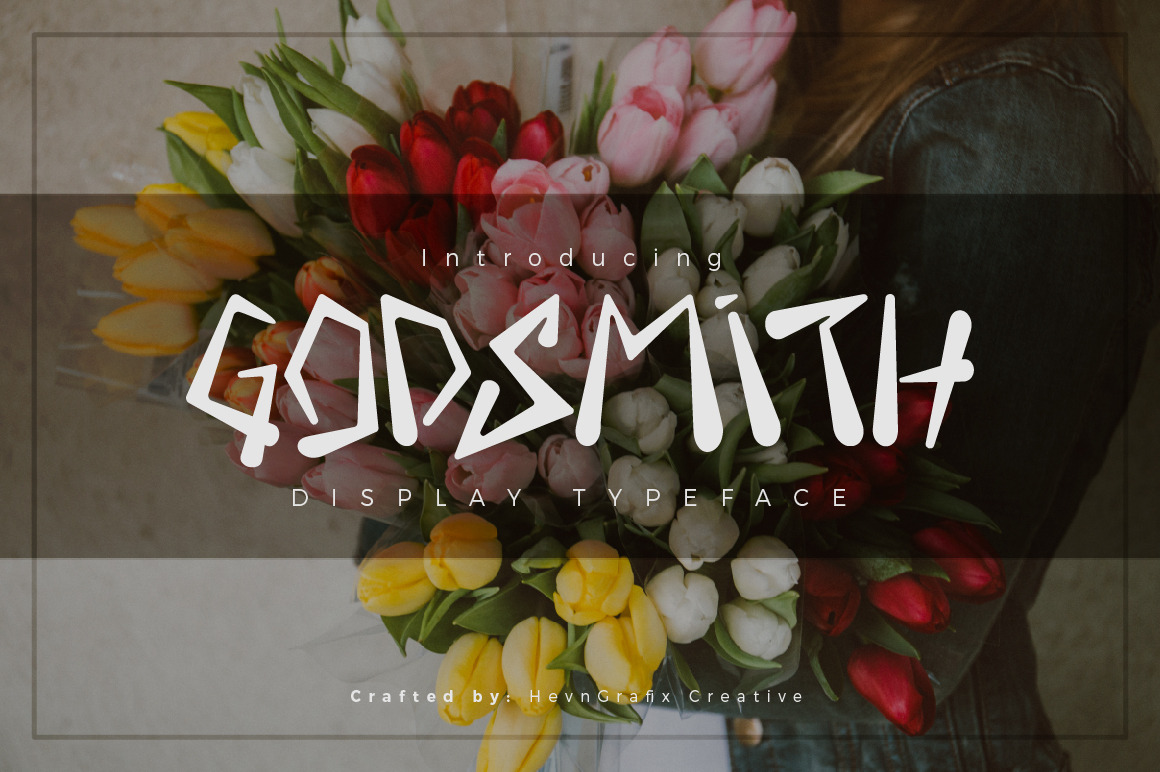
Godsmith Typeface
Introducing Godsmith Typeface, a display font with strong, rough and messy vibes. Use it for logos, cd cover, book cover title, movie poster, clothing, badge, label, etc.